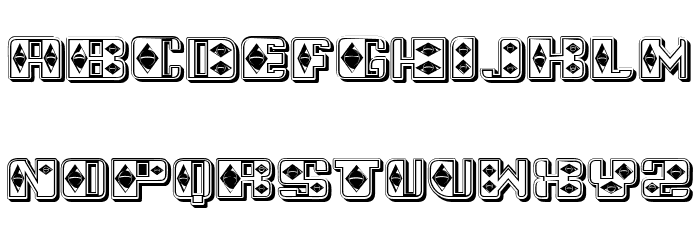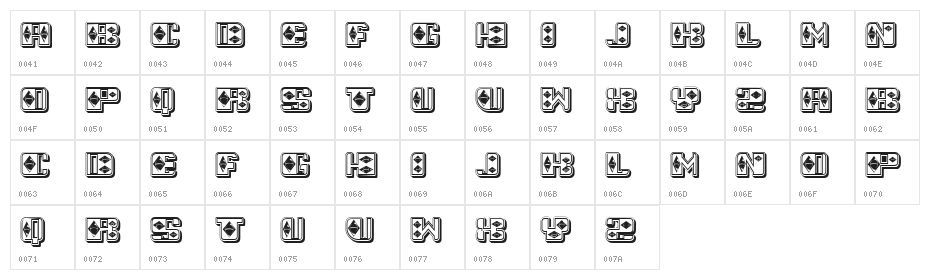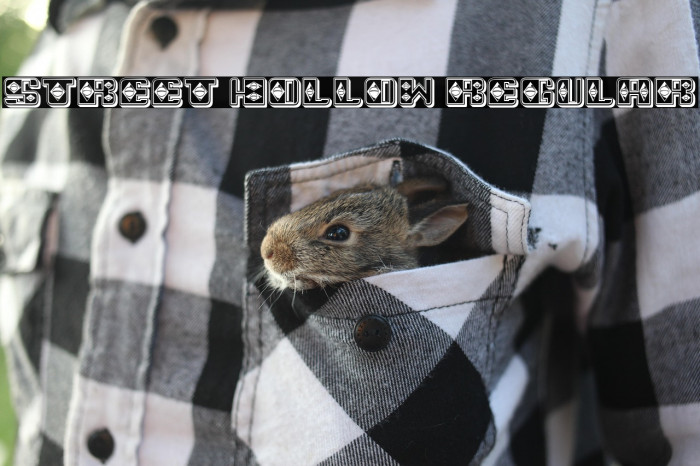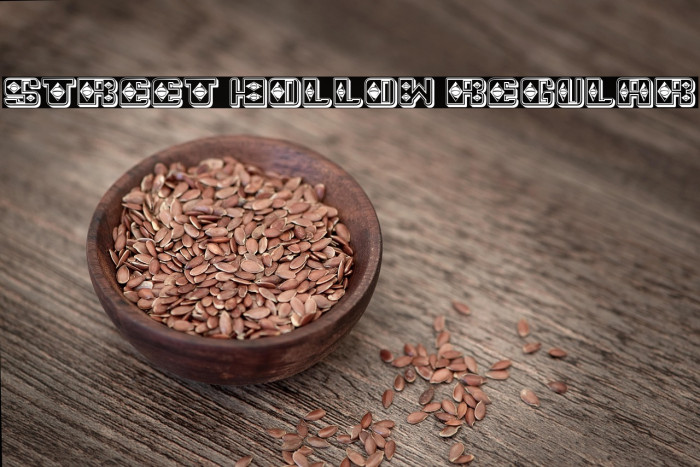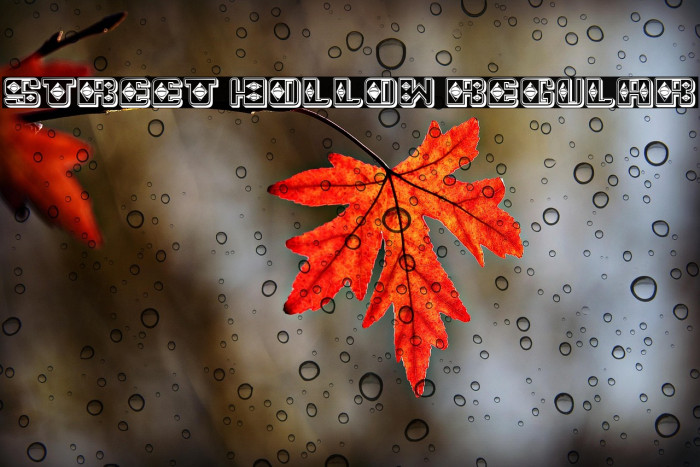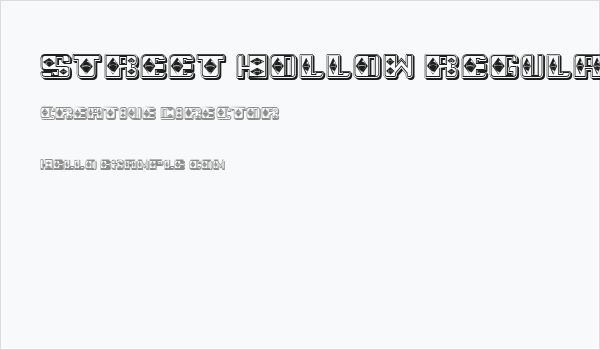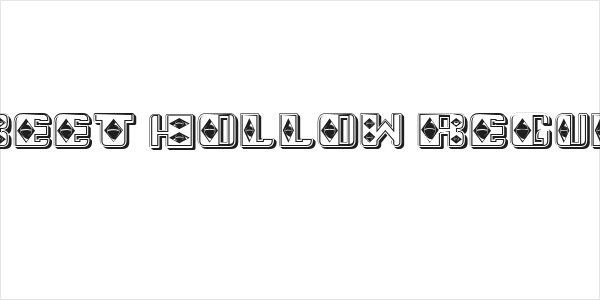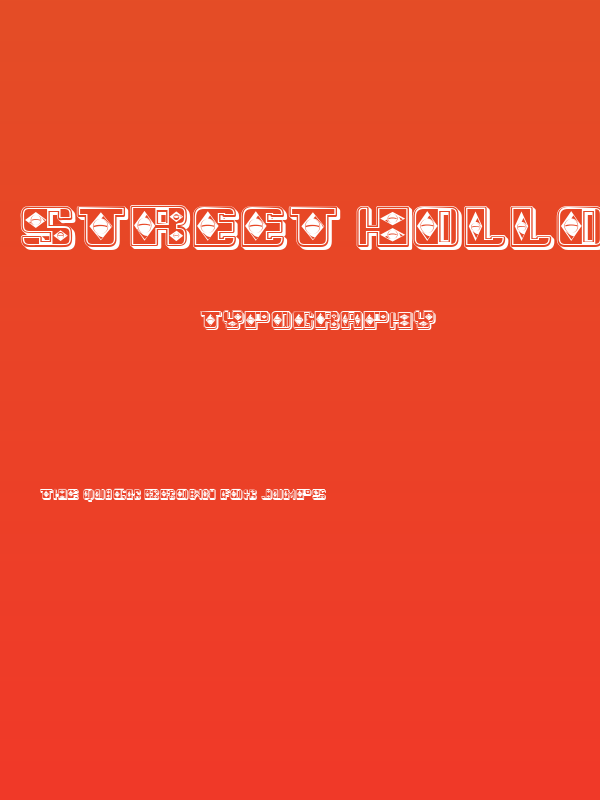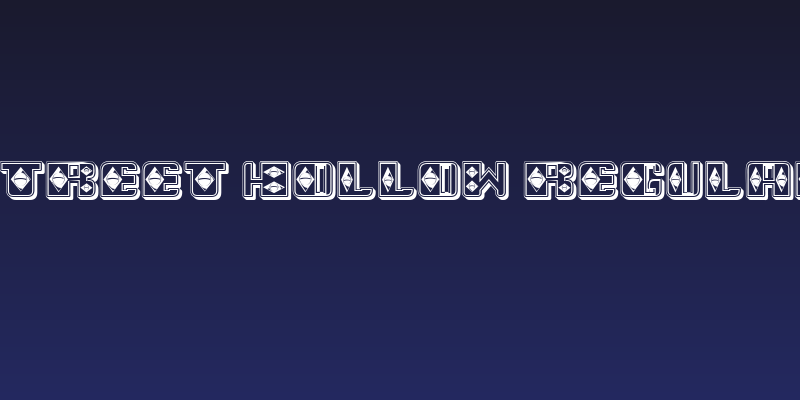
Street Hollow Regular Font
This font features a bold, decorative style with hollow interiors and intricate geometric patterns within each character. The design is highly stylized, with a three-dimensional appearance created by the use of outlines and shading. Each letter is distinct, with unique embellishments that give the font a dynamic and eye-catching look. The characters are evenly spaced, ensuring readability despite the complex design. This font is ideal for making a strong visual impact, suitable for creative projects that require a bold statement.
A bold, decorative font with hollow interiors and intricate geometric patterns.
- Font: Street Hollow Regular
- Proposed Projects: Ideal for poster designs, album covers, branding projects, and any creative work that requires a striking visual element.